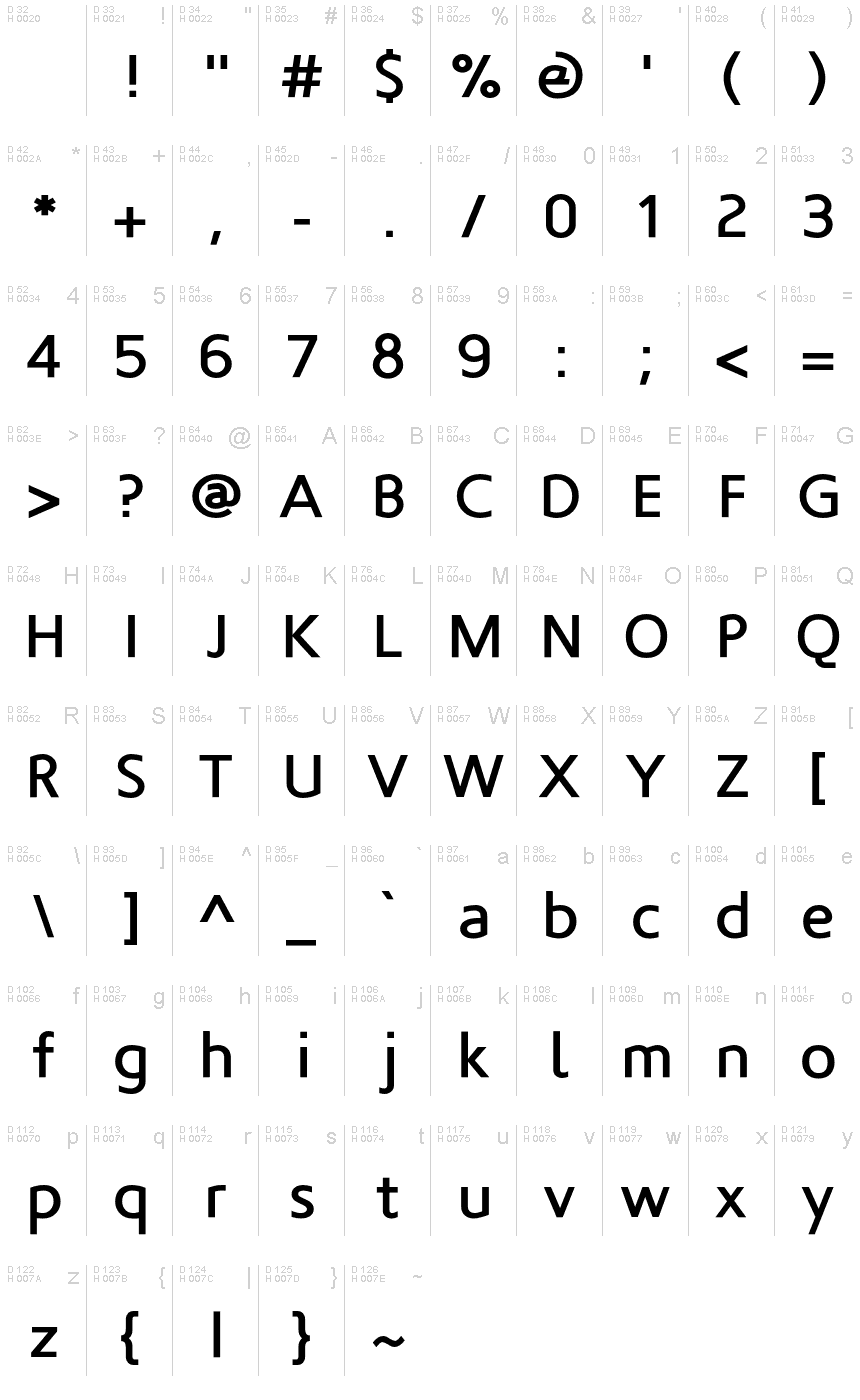
Fortheloveoffonts
For the Love of Fonts is a fresh and modern sans serif font designed by the talented Peridot Kitchen-Sink. With its clean lines and simple elegance, this font is perfect for a wide range of projects, from sleek corporate branding to eye-catching social media graphics.The semi-bold weight of For the Love of Fonts is particularly well-suited for headlines and titles, while the regular weight works beautifully for body copy. Its clean and legible design also makes it an excellent choice for websites, apps, and digital interfaces.From fashion magazines to tech startups, For the Love of Fonts has something to offer every project that values clarity and sophistication. So why not add some love to your typography today?